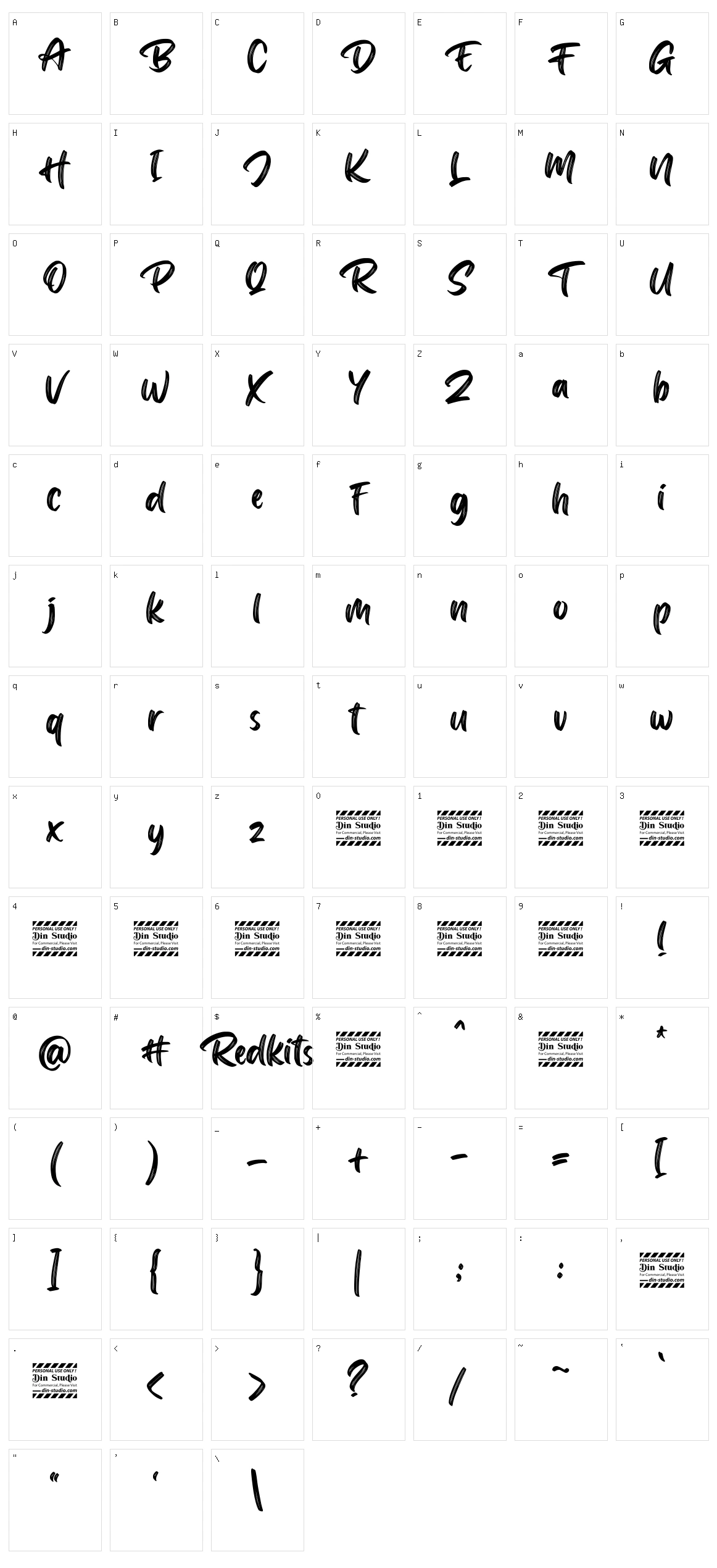
The free font Redkits is carefully designed by Din Studio, showcasing a thoughtful balance of creativity and usability and falls under the Script font style. When you download the ZIP file, it contains only 318.35 KB of font files, making it lightweight and quick to download. Please review the license details below to understand permitted usage and distribution rights. If license information is not available, we recommend using this font for personal projects only or contacting the author directly for commercial usage permissions.